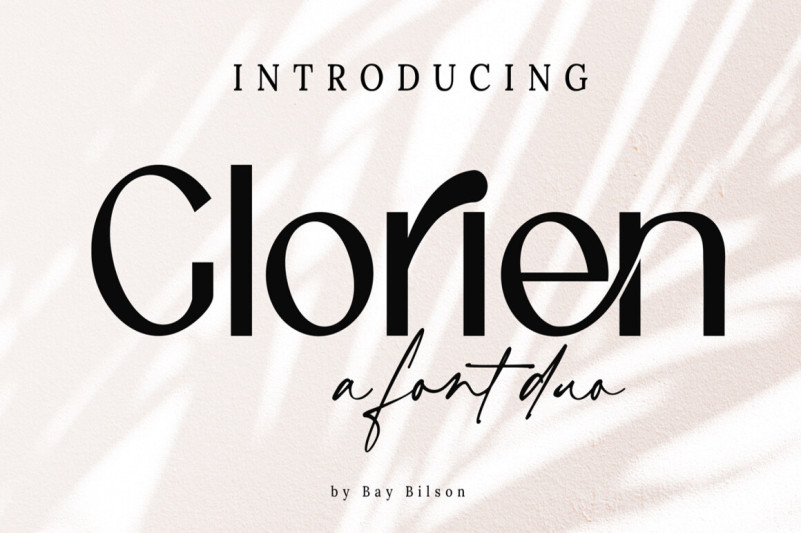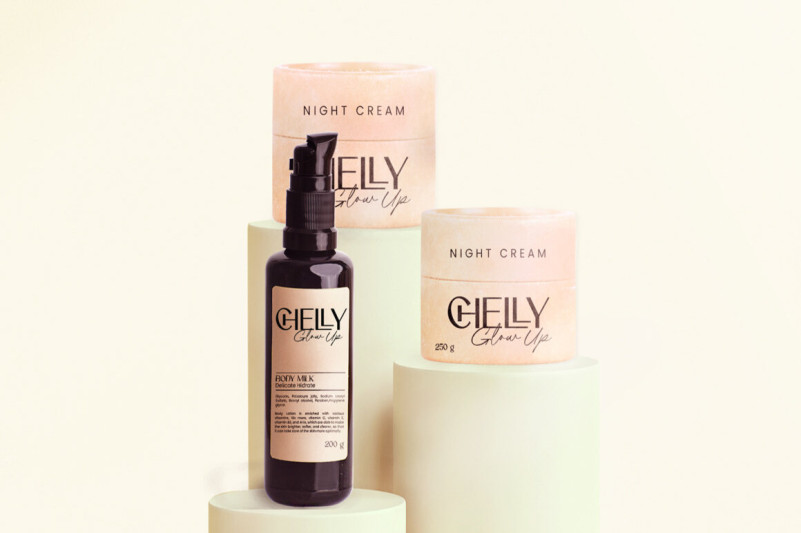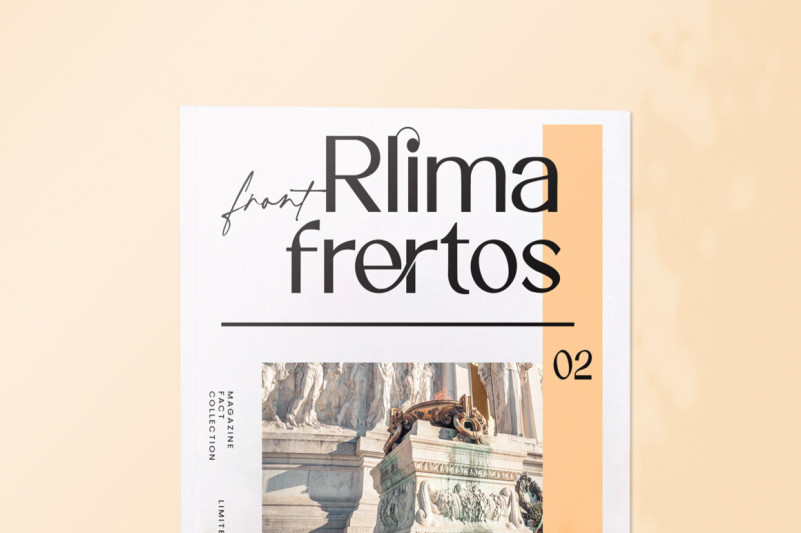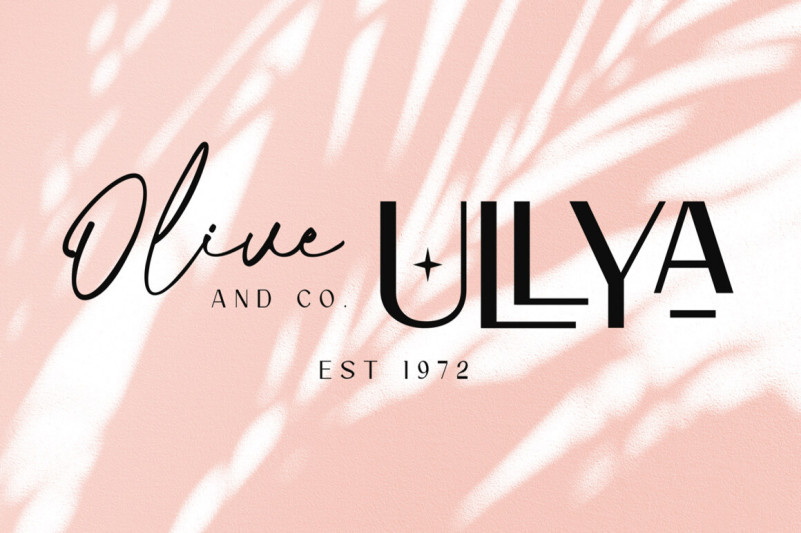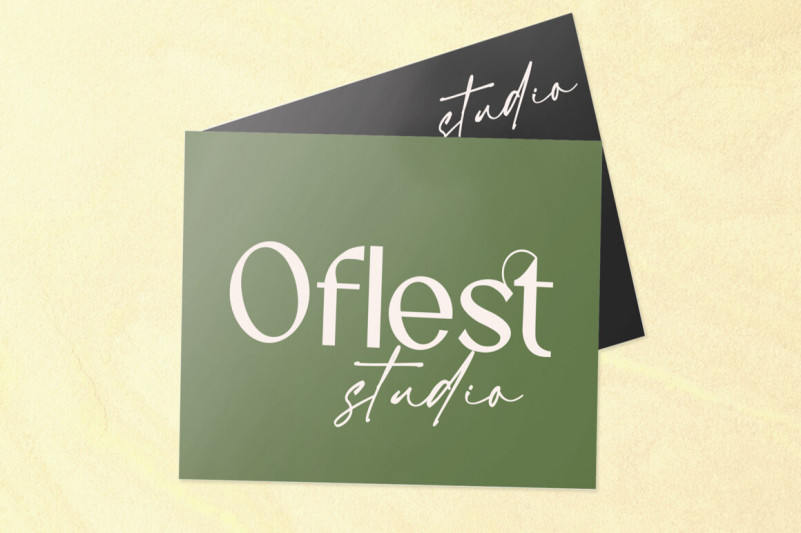
Glorien Font is a pair of stunning sans fonts and scripts that complement each other, with an elegant, luxurious look. Whatever the topic, this font will be a wonderful asset to your font library, as it has the potential to enhance any creation. Glorien is PUA encoded which means you can access all glyphs and swashes with ease!